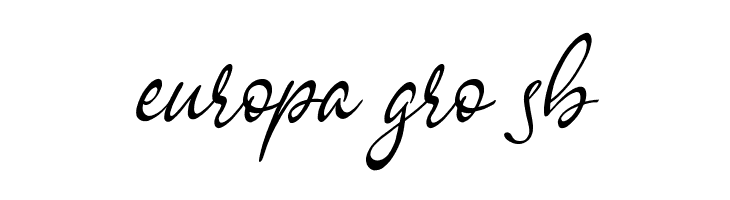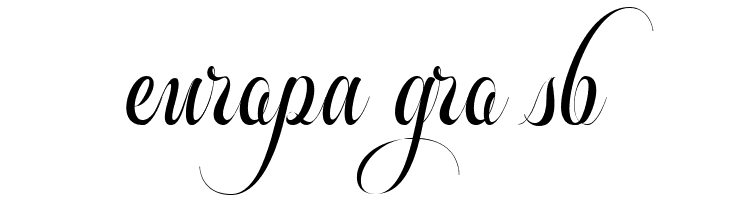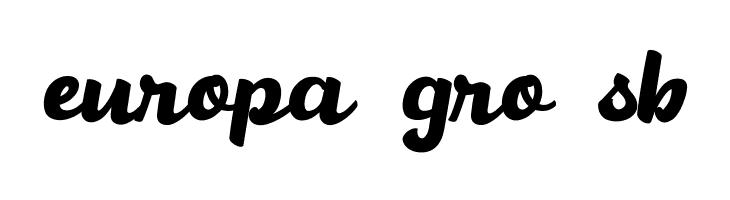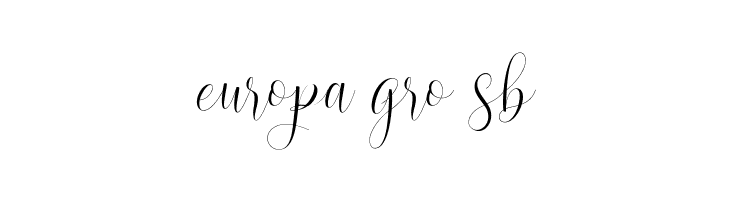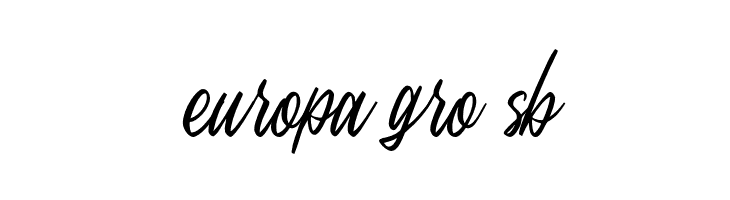
A classic and elegant script font with flowing, cursive letterforms.
An elegant script font with flowing, interconnected letters and ornate flourishes.
A bold, expressive script font with flowing, interconnected characters.
A graceful script font with flowing, cursive characters and elegant loops.
A bold, italicized font with a textured, hand-drawn appearance.
An elegant script font with fluid, cursive strokes and sophisticated style.
An elegant script font with flowing, interconnected letters and graceful flourishes.
A flowing, elegant script font with decorative flourishes.
A lively and elegant script font with fluid, connected letterforms.
A graceful calligraphy-style script font with elegant, flowing letters.